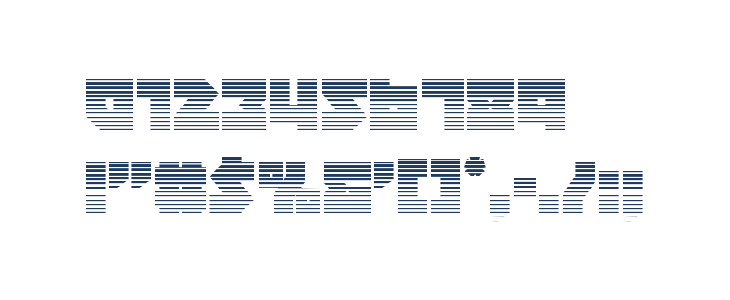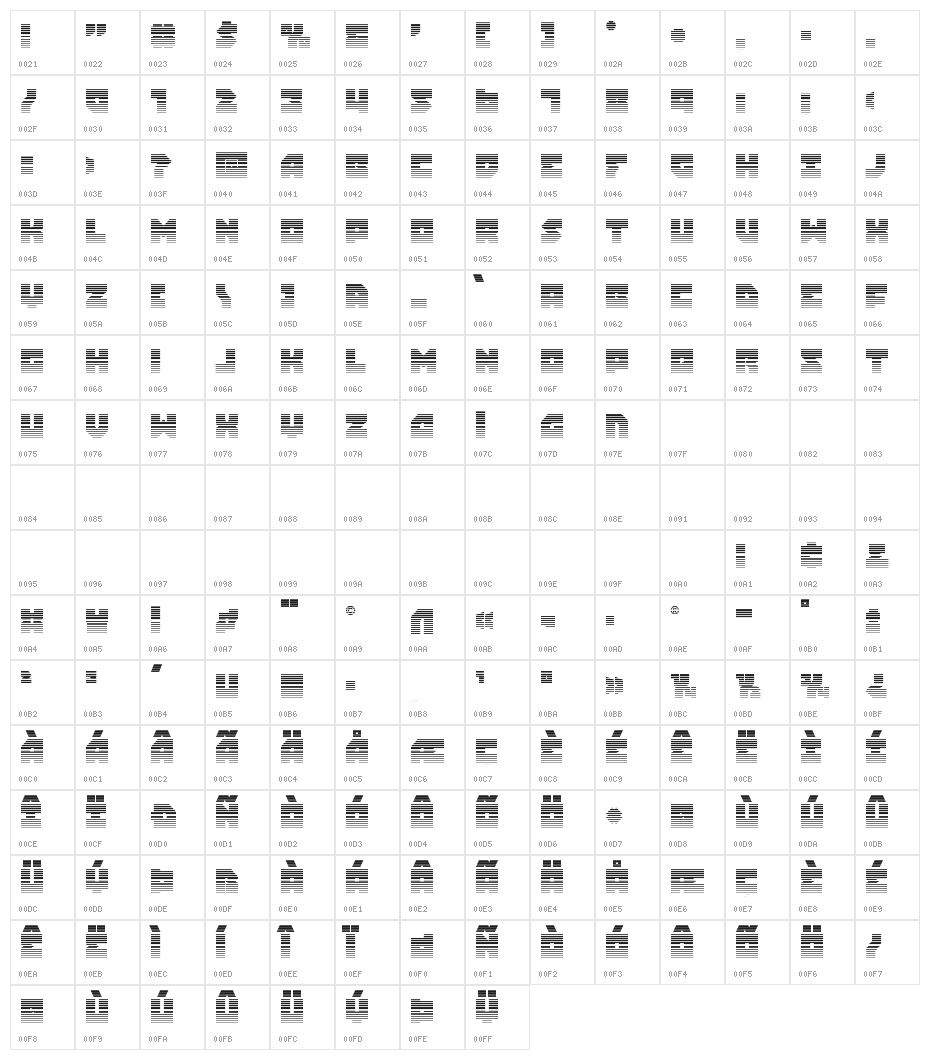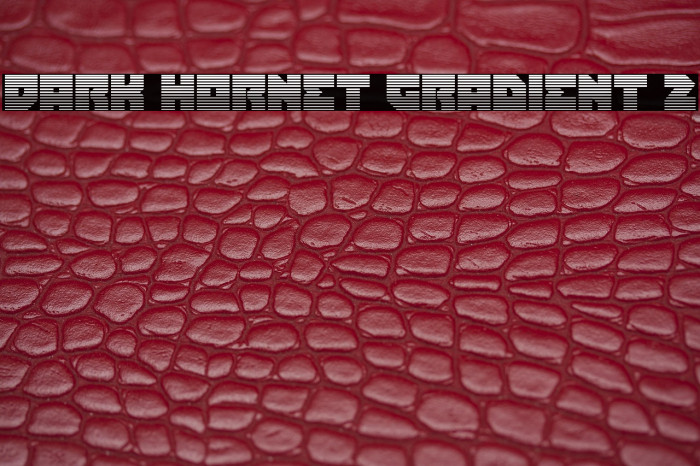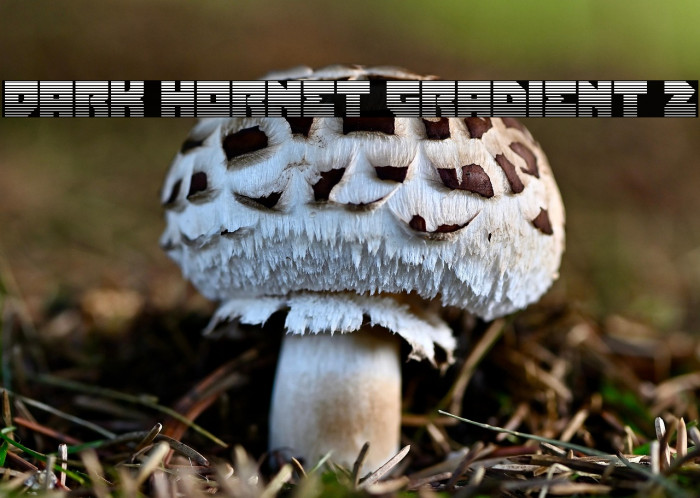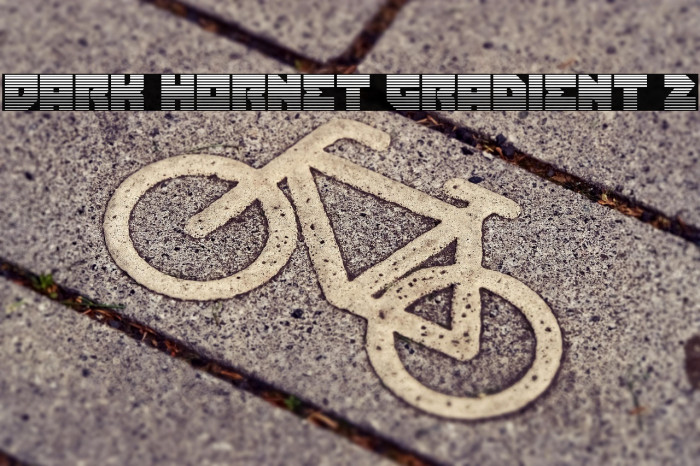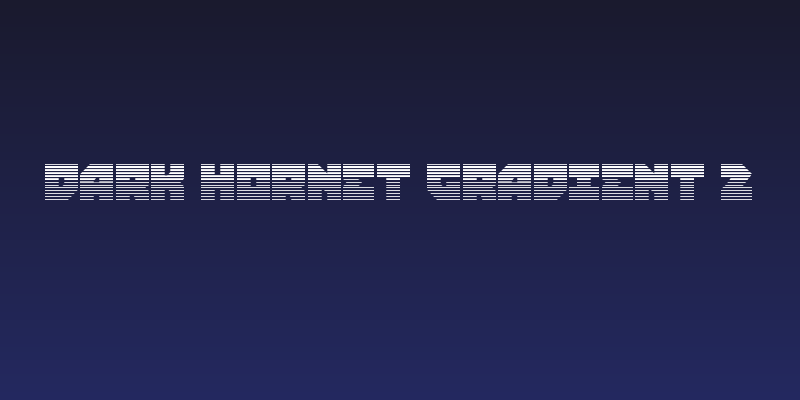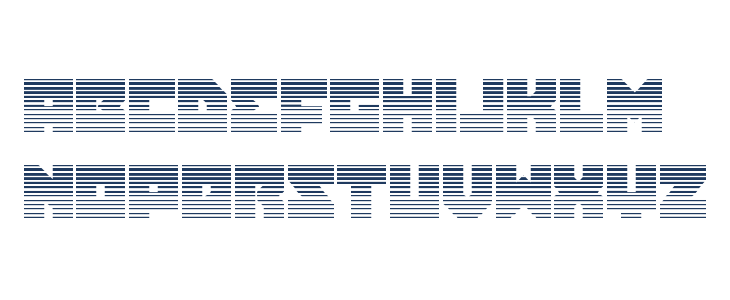
Dark Hornet Gradient 2 Font
Dark Hornet Gradient 2 Description
This font features a bold, geometric design with a distinct horizontal line pattern running through each character, creating a striking visual effect. The uppercase and lowercase letters maintain a consistent style, emphasizing sharp angles and a futuristic aesthetic. The numbers and special characters are designed to match the overall theme, ensuring uniformity across all glyphs. The font's unique style makes it ideal for projects that require a modern and edgy look, such as technology branding or sci-fi themed designs. Its bold presence is eye-catching, making it suitable for headlines or logos where impact is essential.
| Proposed Projects | Ideal for technology branding, sci-fi themed designs, headlines, and logos. |